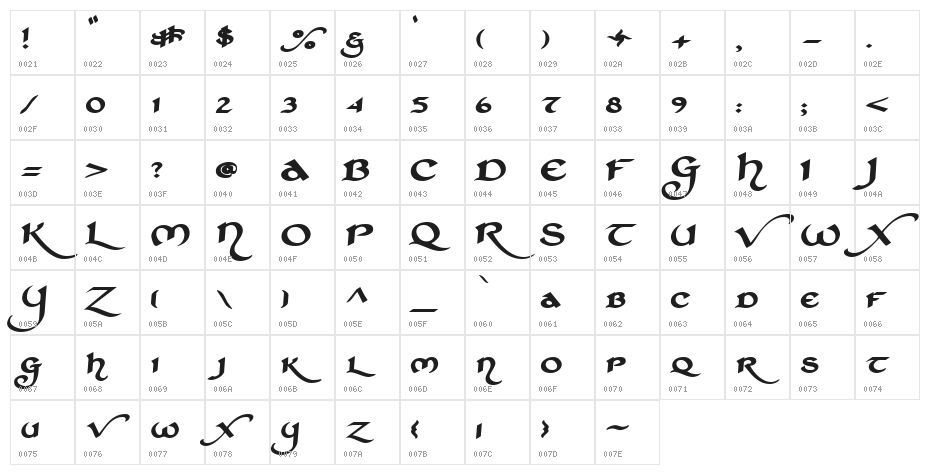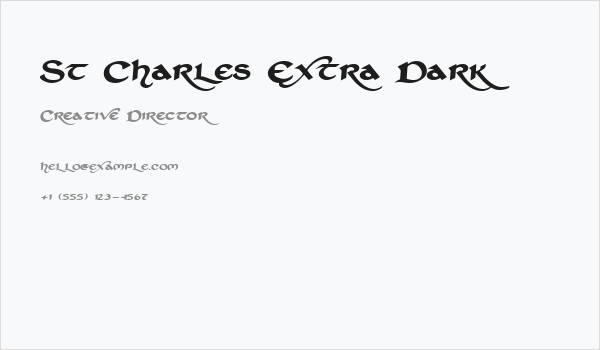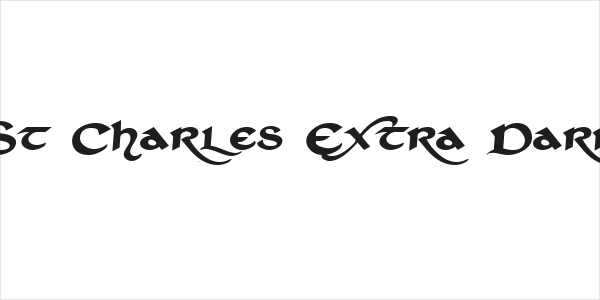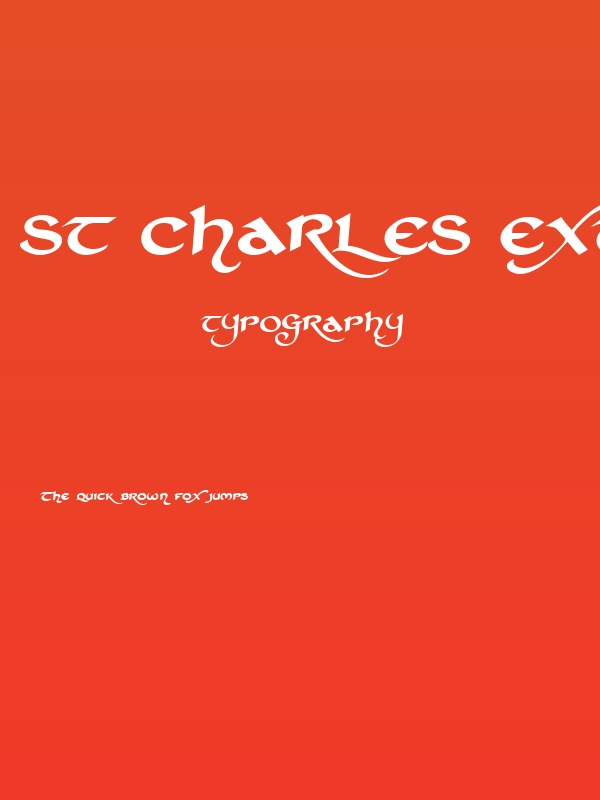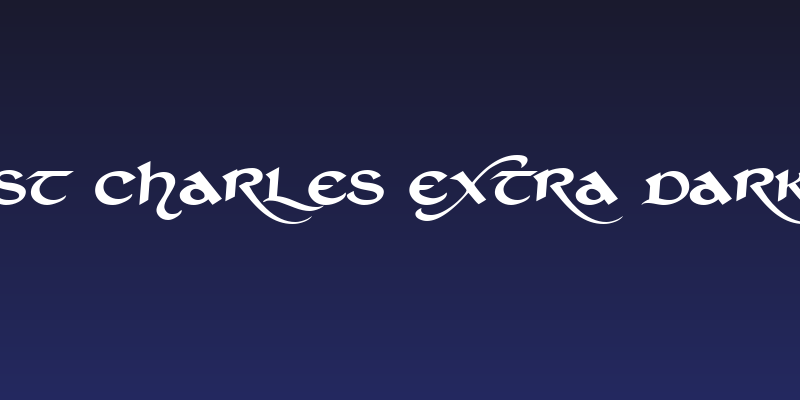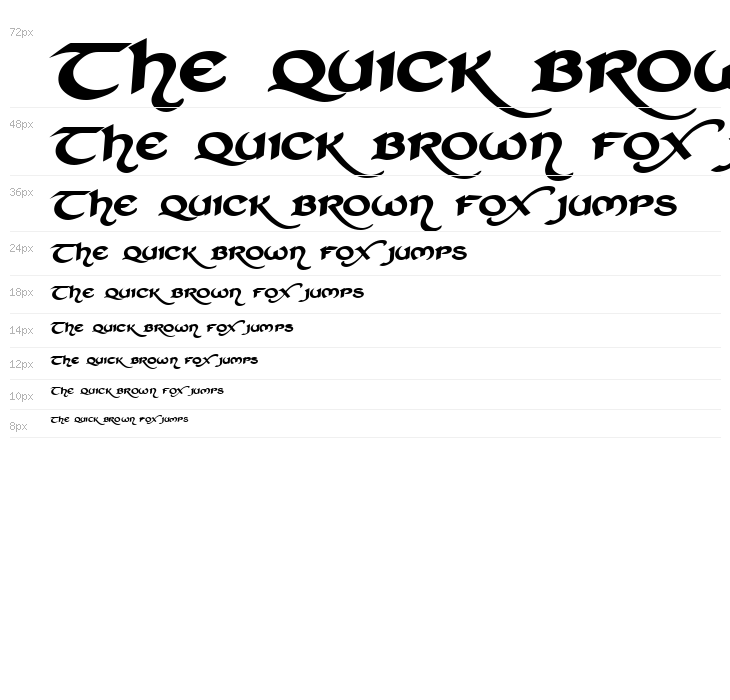
St Charles Extra Dark Font
St Charles Extra Dark Description
This font exhibits a bold and dramatic style with a strong blackletter influence. The characters are intricately designed with sharp angles and sweeping curves, giving it a gothic and medieval appearance. The uppercase letters are particularly elaborate, featuring extended serifs and decorative elements that enhance its ornate look. The lowercase letters maintain the same level of detail, ensuring consistency throughout the typeface. Numerals are equally stylized, fitting seamlessly with the overall aesthetic. The special characters are crafted with similar attention to detail, making this font suitable for projects that require a historical or fantasy theme.
| Proposed Projects | Ideal for fantasy book covers, historical event posters, themed invitations, and branding for gothic or medieval-themed businesses. |